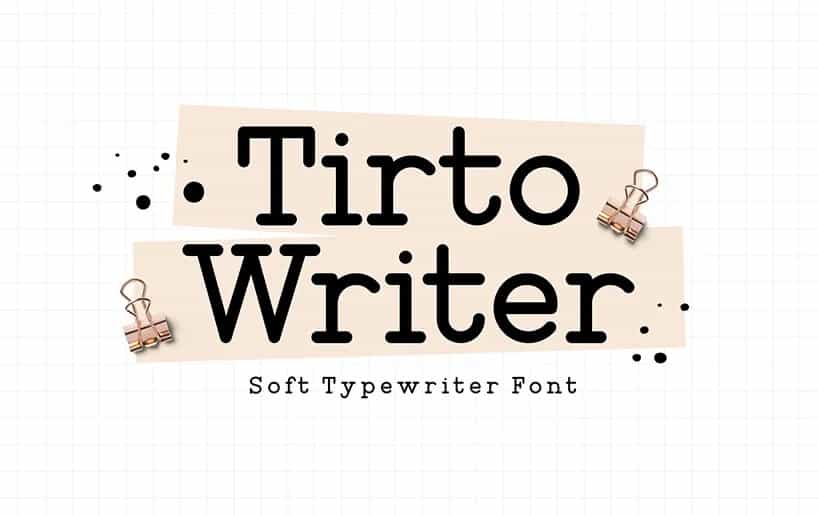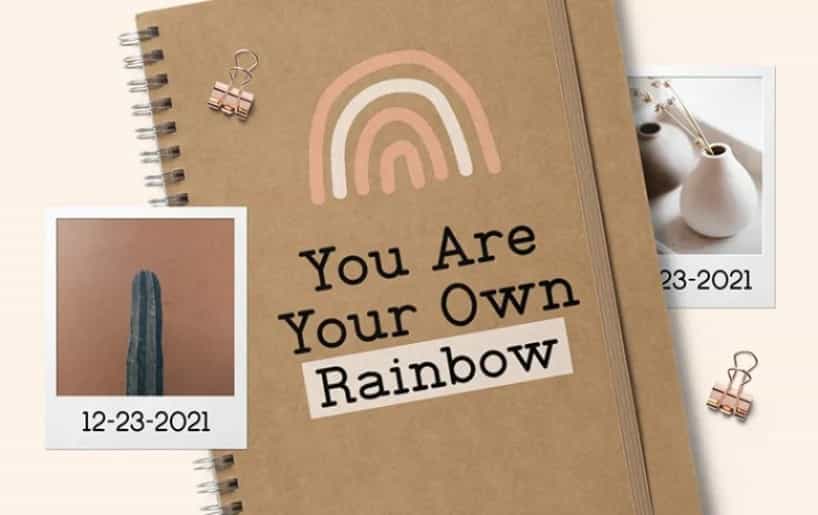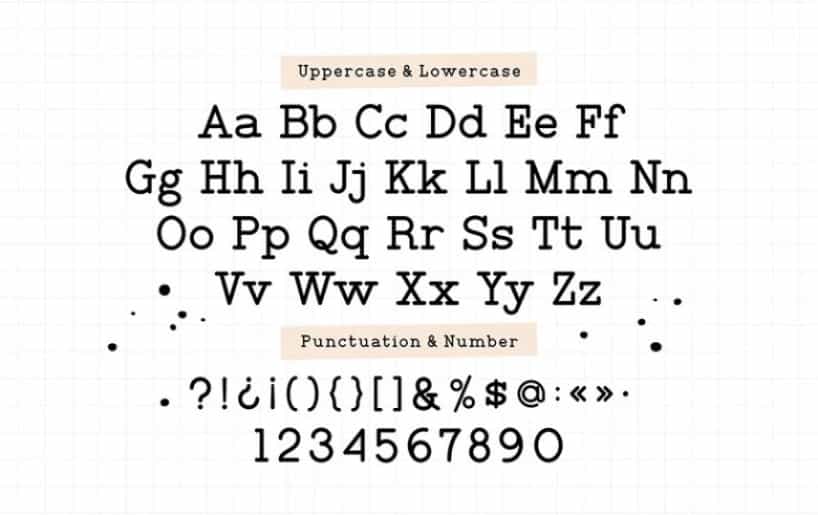
Have you ever needed to use older typefaces for text? Are you seeking an appropriate font that harkens back to times gone by or create text with documentary themes? Tirto Writer could be just what’s needed – a typewriter inspired font which comes complete with uppercase lettering, lowercase letters punctuation marks and numbers in its package.